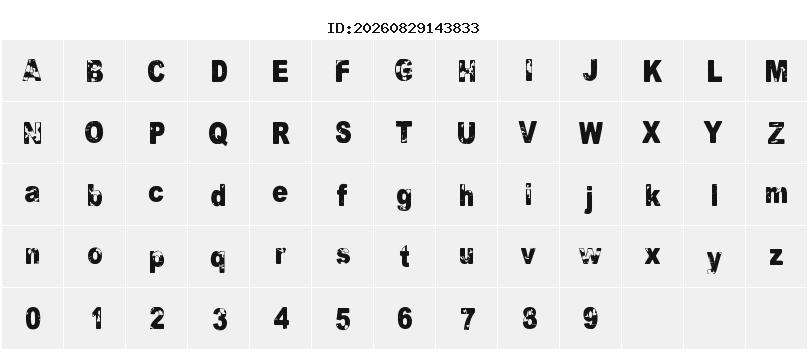
The universe in a nutshell Preview
• Font Name: The universe in a nutshell
• Full Font Name: The universe in a nutshell
• Version: Version 1.00 March 22, 2016, initial release
About The universe in a nutshell.ttf
The universe in a nutshell.ttf is a modern, elegant sans-serif font designed for ultimate readability and visual harmony. Perfect for branding, headlines, web design, and print materials.